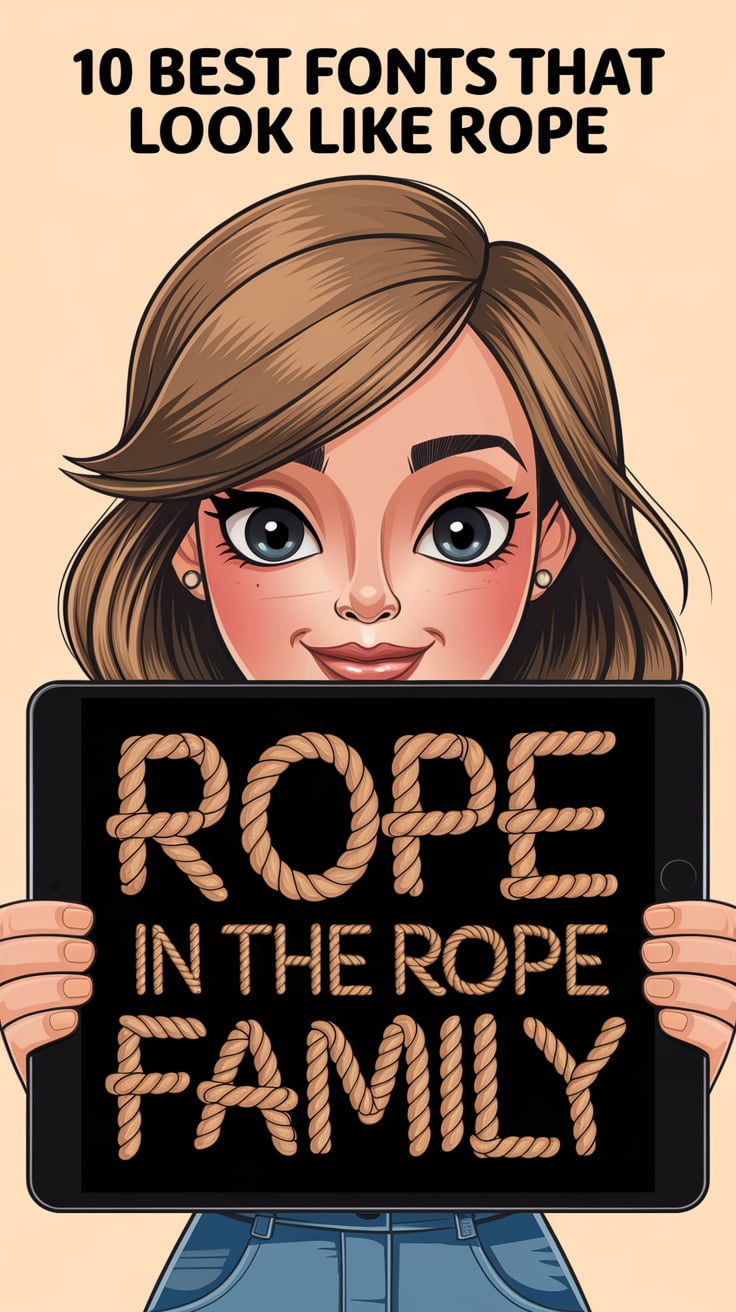
Typography plays a crucial role in establishing the visual identity and emotional tone of any design project.
For designers seeking to evoke feelings of adventure, rustic charm, nautical themes, or western aesthetics, rope-style fonts offer a unique solution that combines functionality with distinctive character.
These specialized typefaces mimic the twisted, textured appearance of actual rope, creating an immediate visual connection to maritime adventures, outdoor exploration, and handcrafted authenticity.
If you’re designing for a sailing club, adventure tourism company, craft brewery, or any project requiring an organic, rope-like aesthetic, go for one of the fonts listed below. You’ll love your creations even more. Such is the magic of these fonts.
1. Rope MF
Rope MF stands as one of the most authentic rope-style fonts available, meticulously crafted to replicate the intricate details of twisted hemp rope.
This typeface features carefully designed shadows and highlights that create a three-dimensional effect, making each letter appear as if it were literally fashioned from rope strands.
The font maintains excellent readability while preserving its distinctive rope texture, making it suitable for both headlines and body text in appropriate contexts.
Its balanced weight distribution ensures that the rope effect doesn’t overwhelm the legibility, while the consistent strand patterns throughout the character set create a cohesive and professional appearance.
This works exceptionally well for nautical-themed designs, adventure brands, and rustic signage.
2. Sailing
Designed specifically with maritime themes in mind, Sailing font captures the essence of nautical rope with remarkable attention to detail.
Each character displays the characteristic twist and texture of ship rigging, complete with subtle variations in thickness that mirror how real rope appears under different tensions and lighting conditions.
The font features a slightly weathered appearance that suggests years of ocean exposure, adding authenticity to any maritime-themed project.
Sailing works particularly well for yacht club logos, marina signage, and seafood restaurant branding, where the rope aesthetic reinforces the connection to oceanic themes.
The typeface includes both uppercase and lowercase letters, with special attention paid to maintaining the rope illusion across all character weights and sizes.
3. Cowboy Rope
Cowboy Rope embodies the authentic spirit of the American West with its rugged, hand-twisted rope aesthetic that perfectly captures the essence of frontier life.
This font features bold, weathered letterforms that appear to be crafted from well-worn lasso rope, complete with realistic fraying effects and natural irregularities that suggest years of ranch work.
The design incorporates the characteristic texture of hemp and manila rope commonly used in cattle ranching, with each character displaying the organic variations that make real rope so visually appealing.
Cowboy Rope excels in western-themed applications such as rodeo promotions, country music branding, steakhouse signage, and ranch logos where authenticity and rugged charm are essential.
The font’s bold presence ensures excellent readability while maintaining the rustic character that makes it ideal for projects requiring a genuine western atmosphere.
4. Like A Rope
Like A Rope delivers an exceptionally realistic interpretation of rope typography through its meticulous attention to the intricate details of twisted fiber construction.
This font showcases the complex interweaving patterns found in traditional rope, with each character featuring multiple strand layers that create depth and dimensional authenticity.
The design captures the subtle variations in tension and twist that occur naturally in rope, resulting in letterforms that truly appear to be constructed from actual cordage material.
Like A Rope works particularly well for nautical applications, adventure tourism branding, and outdoor gear companies where the rope aesthetic needs to convey reliability and craftsmanship.
The font’s sophisticated approach to rope simulation makes it suitable for both rugged outdoor applications and more refined designs that reference maritime or adventure themes with subtle elegance.
5. Round Rope
Round Rope distinguishes itself through its emphasis on the circular, tubular nature of rope construction, creating letterforms that showcase the three-dimensional quality of twisted cordage.
This font features smooth, rounded edges that mirror the appearance of well-maintained marine rope, with consistent diameter throughout each character that creates a clean, professional appearance.
Conclusion
Rope-style fonts offer designers a powerful tool for creating authentic, engaging typography that immediately communicates themes of adventure, craftsmanship, and outdoor lifestyle.
The ten fonts featured in this collection demonstrate the remarkable diversity possible within the rope typography genre.
When selecting a rope font for your project, consider not only the visual impact but also how well the font’s specific character aligns with your brand message and target audience.